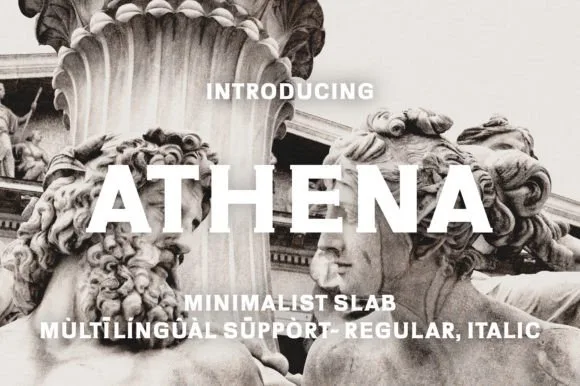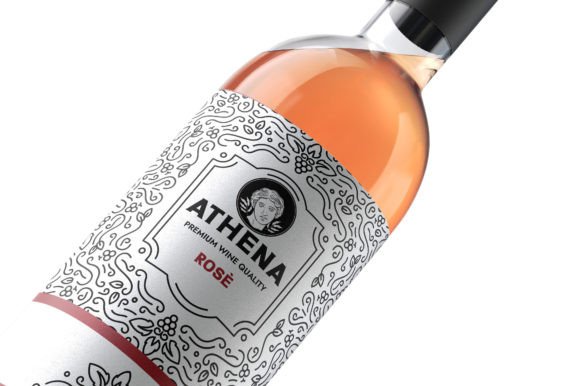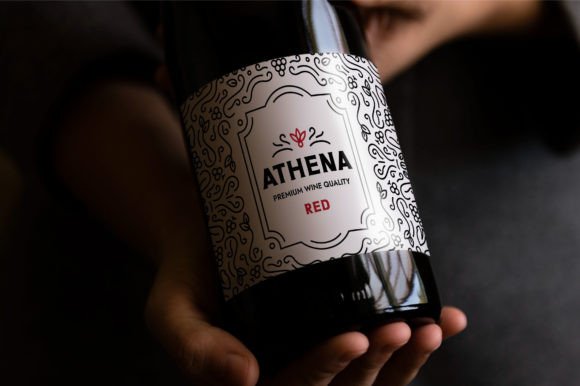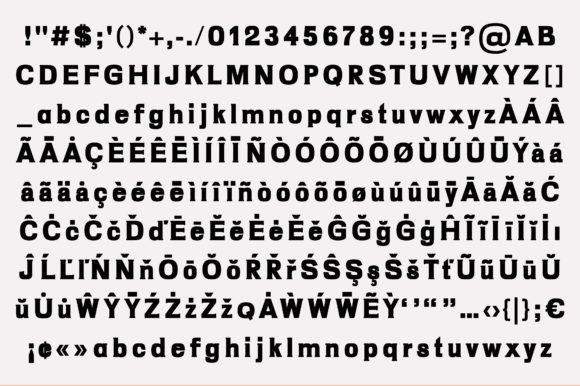
Athena Font
ATHENA FONT SPECIMEN
Athena is a stylish, elegant, luxurious bold slab serif typeface. It is inspired by Greek culture and it can be used in a wide range of contexts such as packaging design, exhibition invites, perfume design, cosmetics design, or any project that really needs a special, refined touch.